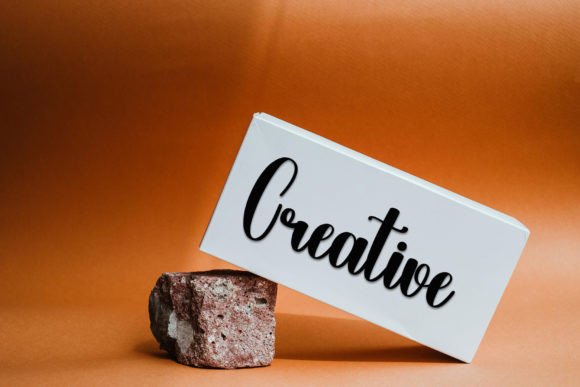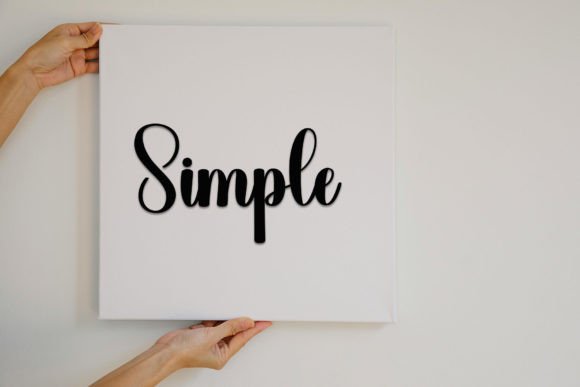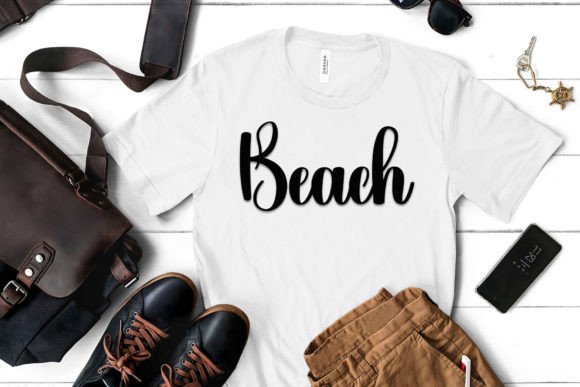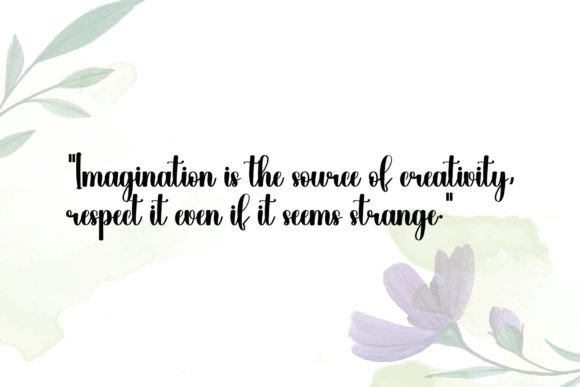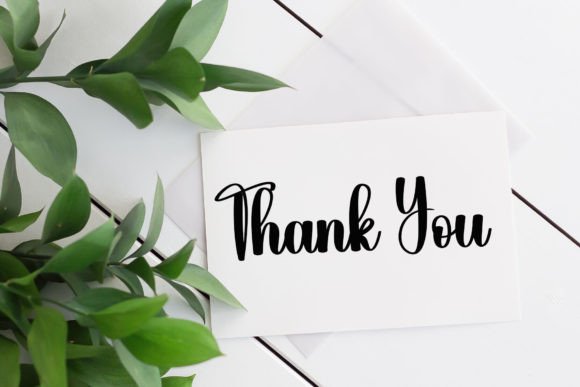
Introducing Bigfoot Font: Elevate Your Designs with Elegance and Class
In the world of typography, fonts play a crucial role in conveying the tone and personality of a design. For designers and crafters seeking to add a touch of sophistication and elegance to their projects, Bigfoot Font is an excellent choice. This trendy handwritten font boasts a contemporary atmosphere and impeccable form, drawing inspiration from timeless classic calligraphy.
The Essence of Bigfoot Font
Bigfoot Font is a beautiful, handwritten typeface that exudes refinement and poise. Its unique, flowing script is reminiscent of traditional calligraphy, yet infused with a modern twist that sets it apart from more traditional fonts. The result is a font that feels both classic and contemporary, making it versatile enough to be used in a wide range of design applications.
Key Features of Bigfoot Font
- Trendy and Contemporary: Bigfoot Font features a modern, stylish aesthetic that will instantly elevate your designs.
- Inspired by Classic Calligraphy: The font’s roots in traditional calligraphy give it a timeless quality that will never go out of style.
- Elegant and Classy: Bigfoot Font adds a touch of sophistication to any project, making it perfect for designs that require a high level of refinement.
- Impeccable Form: The font’s precise, flowing lines ensure that it remains clear and legible, even at smaller sizes.
Uses for Bigfoot Font
Bigfoot Font’s versatility makes it suitable for a variety of design projects, including:
- Branding and Logo Design: Create a lasting impression with a custom logo that showcases your brand’s personality and style.
- Stationery and Invitations: Add a touch of elegance to your stationery, invitations, and greeting cards.
- Packaging Design: Stand out on store shelves with packaging that features a unique, eye-catching font.
- Digital Media: Use Bigfoot Font in your digital projects, such as social media graphics, blog posts, and website headers.
Tips for Using Bigfoot Font Effectively
To get the most out of Bigfoot Font, consider the following tips:
- Pair with Complementary Fonts: Combine Bigfoot Font with simpler fonts to create visual interest and hierarchy in your designs.
- Experiment with Colors: Try pairing Bigfoot Font with different colors to find the perfect combination that suits your brand or project’s style.
- Pay Attention to Size: Ensure that Bigfoot Font is used at a size that is legible and visually appealing.
Bigfoot Font is a stylish and elegant handwritten font that can add a touch of sophistication to any design project. Its unique blend of classic calligraphy and modern style makes it a versatile choice for designers and crafters. Whether you’re working on a branding project, creating stationery, or designing packaging, Bigfoot Font is an excellent choice for adding elegance and class to your work.